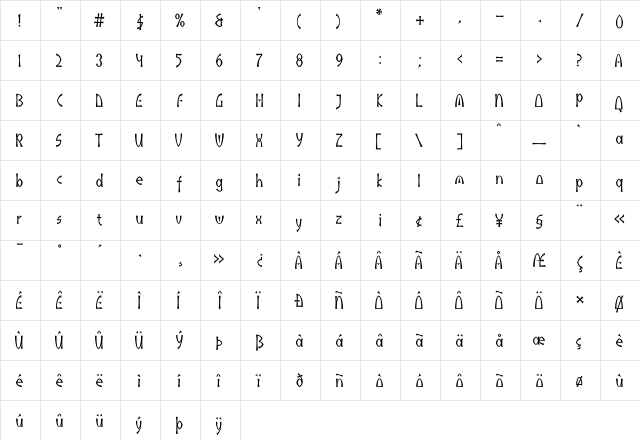
IndusLL Regular
Design Context for IndusLL Typeface
IndusLL offers clean, dependable letterforms without strong stylistic allegiance, making it a practical choice for designers who need flexibility.
Pro Tip: Use IndusLL in both headline and body roles to test its range before committing to a single application.